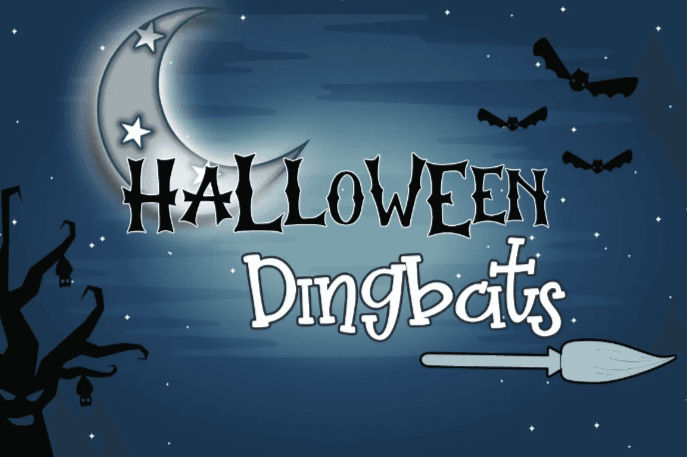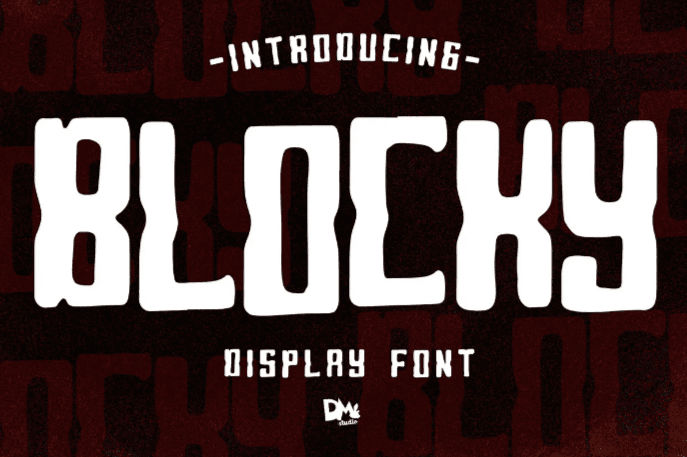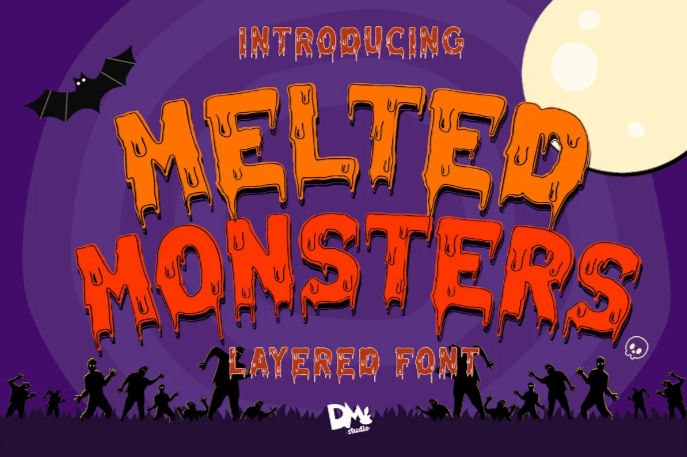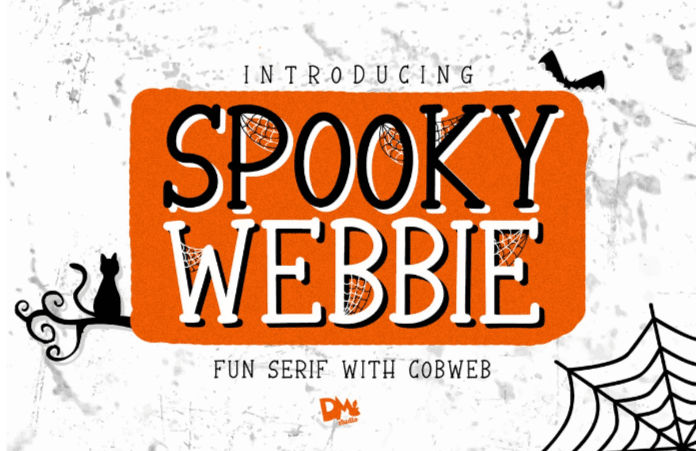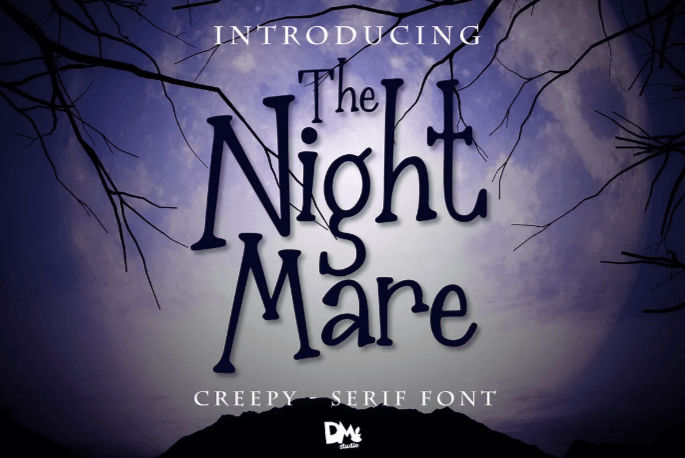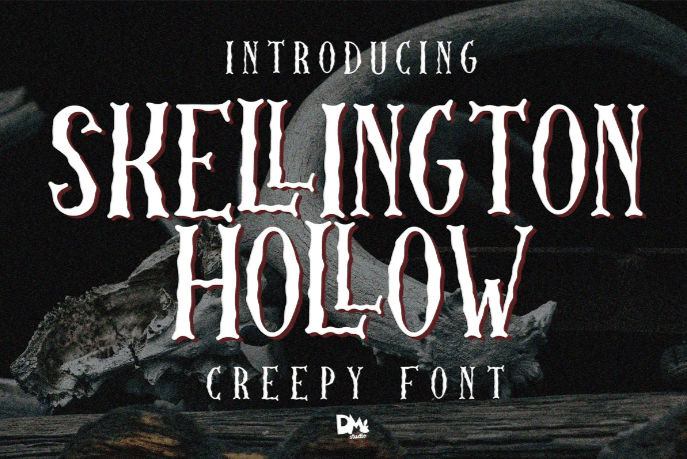
Font for Horror: 30+ Creepy Font for Spine-Chilling Design
A Halloween-themed needs an ideal font to build the creepy atmosphere. A font for horror may combine gothic, grunge, and vintage aspects to raise the element of terror. Thus, you need the right font to set the mood for your audience.
Get ready! We have some nightmarish collections for your horror-themed design projects.
31 Best Fonts for Horror Design
Find your font recipe for scawwy and eerie designs in the list below!
1. Scary Night
A brush font like the Scary Night font sets a perfect vibe for Halloween. The design is simple yet good enough to make your audience frightened.
2. Scary House
Scary House font has a classic design. The font seems cartoonish but can go well for kid horror-themed projects, such as comic books, flyers, and posters.
3. Skellington Hollow
Skellington Hollow font incorporates irregular lines and strokes. As a result, you’ll see a disturbing-looking typeface.
4. Grill Shadow
Grill Shadow is a font for horror that reminds you of 80s horror movie posters. This font is perfect for establishing mysterious, creepy, and murderous auras.
5. The Graveyard
The Graveyard font incorporates spiky lines and additional Halloween-themed doodles. It reminds you of horror cartoons, such as Casper or Scooby-Doo.
6. Dark Silence
Dark Silence’s design can raise an unsettling feeling. This font is enough to bring fearful moments to your audience.
7. Chill Blood
Chill Blood has dripping blood-like design with a cute letterform. A good option for Halloween for kids’ projects.
8. Scary Zombie
Scary Zombie includes wavy strokes and inconsistent lines. As a result, the design gives off an uneasy feeling, which is suitable for a horror theme.
9. Night Blood
Night Blood font is one of the best fonts for horror books for kids. The design matches the horror theme but it is not too scary for children.
10. Halloween Dingbats
Halloween Dingbats offers various doodles to set the fun mood for Halloween night.
11. Blocky
Although Block font represents courage and power, it can also visualize a great threat in your design.
12. Melted Monster
This font can evoke an ominous feeling. Melted Monster’s design matches any sinister-themed designs, like invitations or packaging.
13. Spooky Webble
Spider web decorations in Spooky Webbie are suitable for establishing an arachnophobia vibes with frightening feelings.
14. The Witch
Create something magical yet dangerous atmosphere, like in the Coraline movie. This font for horror can assist you in establishing that vibe.
15. Menzainine
Menzainine font is a bold font with a street-style design. Nevertheless, it can convey a mysterious feeling like an urban legend.
16. The Nightmare
Cryptic design with a magical atmosphere. The Nightmare is perfect for a bedtime storybook cover.
17. Lodeh
The black letter font can evoke a creepy feeling. Moreover, it can work well with heavy metal designs.